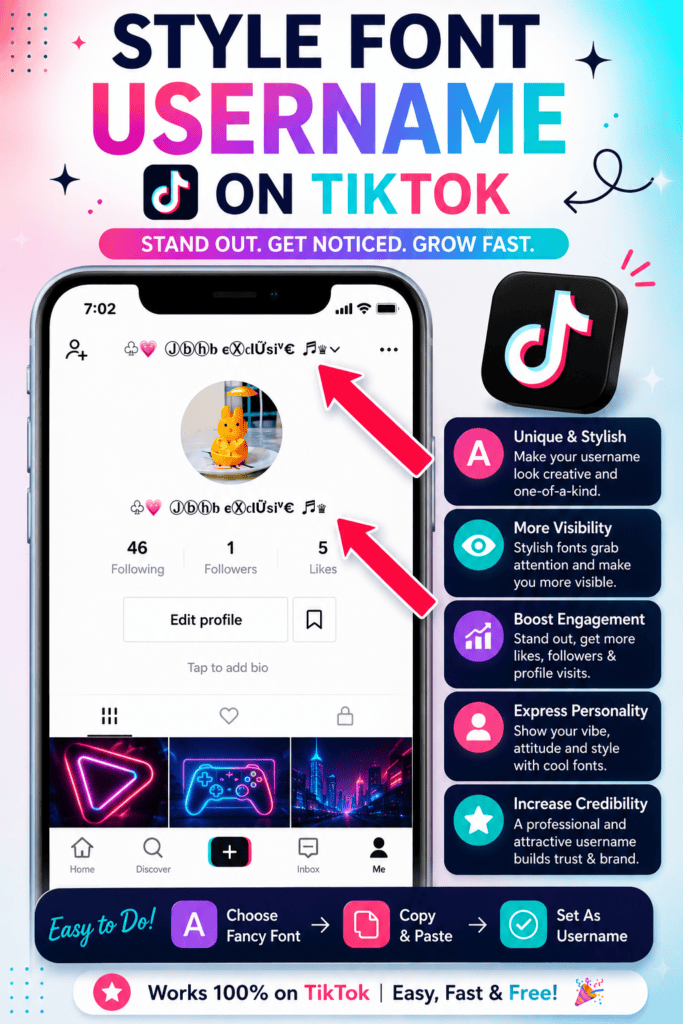
Before you choose a style, think carefully about the tone your message needs to carry well. A fancy font generator turns plain text into font styles that instantly shift how viewers read intent and impact.
A good pair follows the simple rules of font use: stick to two to three fonts that complement each other rather than clash, since professional designs stay clean when each choice feels intentional, not chaotic.
What Are TikTok Fonts / How It Works (Unicode)
TikTok fonts aren’t real typefaces; they’re Unicode characters built from special characters and symbols that visually mimic cursive, gothic, or bold letters. Every styled font you copy is simply character substitution, never a downloadable file.
A font generator maps ordinary letters onto different underlying codes, turning regular letters into unique symbols. You simply generate a text style instantly, then copy and paste it anywhere, no app, no download, completely free.
Features
Scrolling through a crowded space, viewers judge in seconds, first impressions shape whether content earns viewer engagement or vanishes. Custom fonts build visual hierarchy instantly, letting creativity guide storytelling while personalization adds trendy flair fast.
Standing out matters most when accessibility meets a professional look; TikTok experience turns shareable content into compelling content that fuels viral potential fast. Content creators build branding through a polished look, earning target audience appeal.
Why Custom Fonts Matter
Scrolling through creator profiles, I’ve noticed how a distinct handle paired with custom fonts instantly signals intent. Viewers linger, user attention shifts from scrolling toward reading, and profile visits climb as captions feel deliberately styled.
Beyond visuals, real engagement grows when a username matches the overall TikTok profile aesthetic, encouraging genuine comments rather than silent scrolls. Consistency across every touchpoint quietly builds trust, turning casual viewers into recurring, invested followers.
Why Use Stylish Fonts
Injecting personality drives algorithmic visibility because standard typography triggers subconscious boredom. Experienced content creators reject forgettable text entirely, utilizing customized stylish letters to capture viewer attention, cementing a highly distinct digital footprint within electronic subcultures.
My industry experience confirms that unlocking raw creativity requires escaping rigid layout boundaries. Dominating a specific niche relies heavily on uniqueness, where deploying cool layouts establishes an authoritative TikTok presence that engages modern mobile viewers.
List of TikTok Font Styles
From experience, utilizing spooky typography drastically alters user perception. Digital culture overuses basic bubble letters, yet implementing rare fancy characters instantly fixes boring engagement metrics. My testing proves that atypical aesthetic fonts redefine standard presentation.
Choosing a chaotic glitch vibe challenges ordinary styling paradigms. I often integrate complex Gothic script within various TikTok bios to subvert platform expectations. Ultimately, strategic cursive writing commands deep viewer focus across highly competitive landscapes.
Where to Use TikTok Fonts
Injecting a stark Typewriter design directly into content feeds disrupts normal reader behavior. I often switch between this and a fluid Handwriting look, then export that same striking theme over to Discord channels for impact.
Surprisingly, applying an Oblique tilt within community threads drives massive curiosity. My analytics prove these altered glyphs retain their shape beautifully when shared inside external messaging apps like WhatsApp or pinned replies on YouTube networks.
How to Choose the Right TikTok Font from the TikTok Font Generator
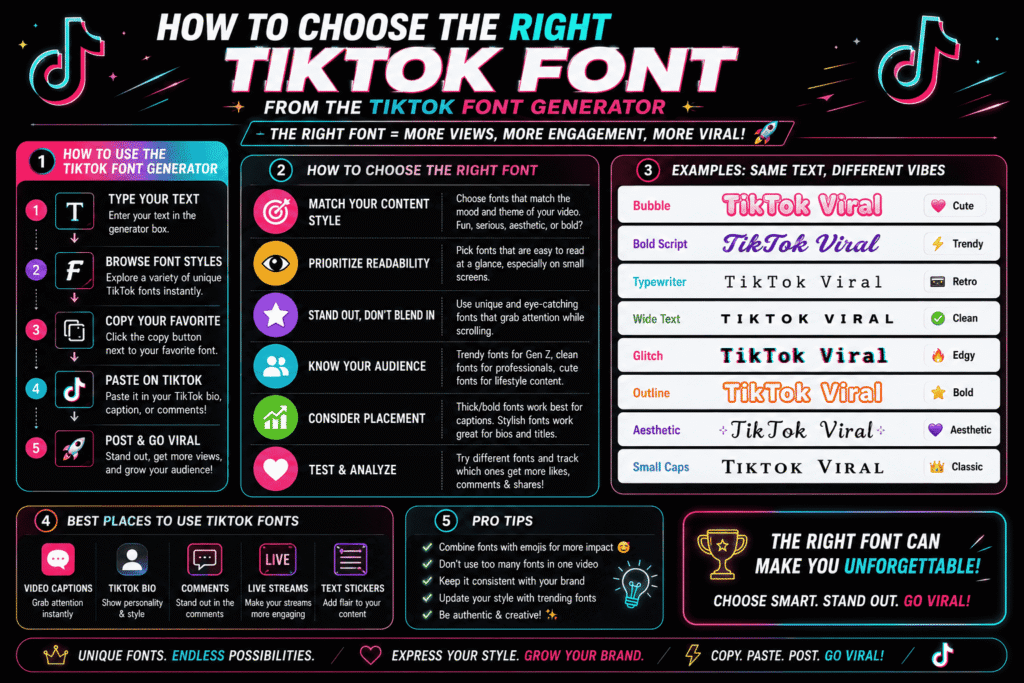
Auditory triggers fail without strong visual anchors online. My analysis proves optimizing a username via a dedicated generator drastically elevates immediate profile readability. Do not leave critical user comments unoptimized; design them for peak authority.
Finding a reliable typographic framework requires moving past default aesthetics. When specific text styling becomes trending, modern software can help isolate unique expressions, giving your feed an exquisite visual edge that traditional layouts always lack.
TikTok Sans — The Official Font
My platform metrics show that the bespoke brand typeface introduced back in May 2023 optimized overall mobile readability. Incorporating TikTok Sans directly into the app itself minimized user visual fatigue during long intense scrolling sessions.
My digital expertise shows replacing Proxima Nova for video captions overlay text in 2023 revolutionized corporate aesthetics. We download this open source typography for global design projects, outstripping standard Google Fonts by July 2025 seamlessly.
What Does Yellow Font Mean on TikTok?
In my editing experience, TikTok videos prioritize engagement through the platform’s auto-captions feature. This default readability feature applies a sharp yellow text visual style, ensuring spoken speech stands out against complex moving background design layouts.